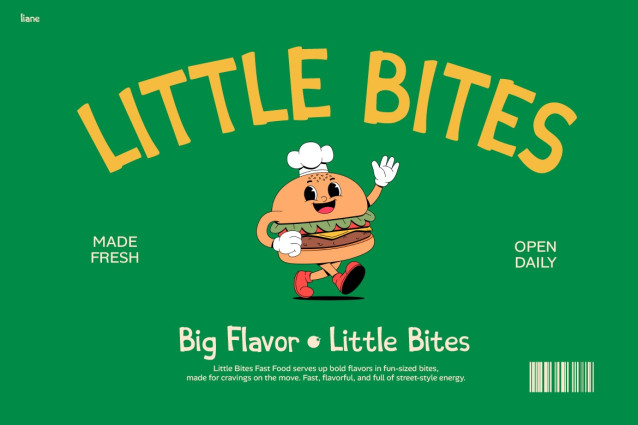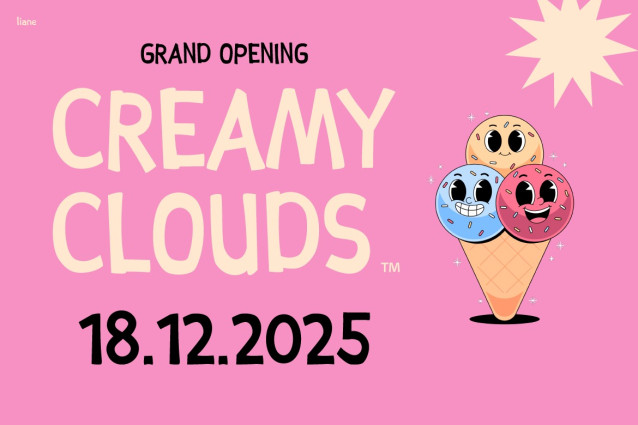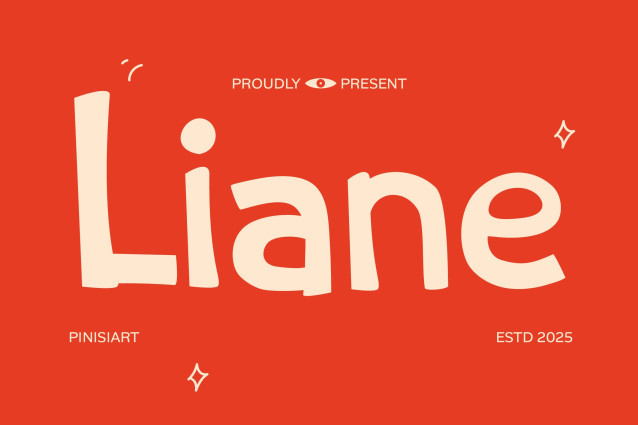
Liane Display Font
Liane Display Font is a typeface that captures the essence of childhood joy. With bold strokes, rounded edges, and a cheerful style, it feels alive in every letter. Unlike ordinary fonts, Kids Font Liane mixes simplicity with fun, making text approachable and full of character. Its handmade look adds warmth while keeping the letters clean and easy to read. Whether paired with bright colors or minimal palettes, this font delivers energy and personality. That balance makes it not only beautiful but also highly functional for designers.
Kids Font Liane is designed with flexibility in mind. It works equally well in small text or big, bold headlines. The letters maintain consistency while carrying a playful rhythm that sparks imagination. This makes the font reliable for professional projects yet fun enough for creative, personal work. It bridges the gap between joyful expression and practical readability, giving you the best of both worlds.